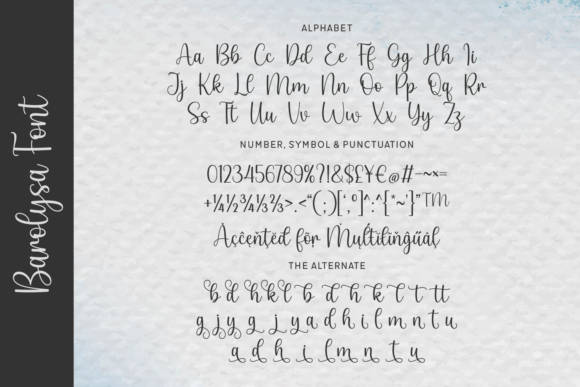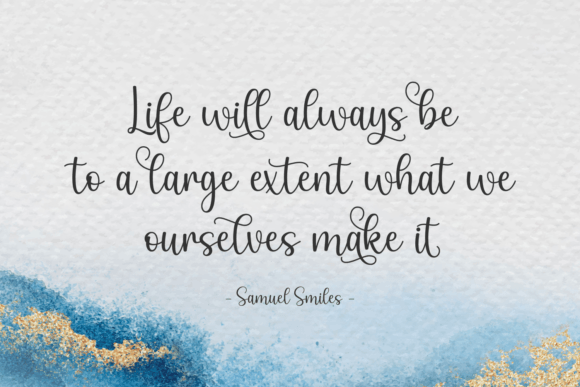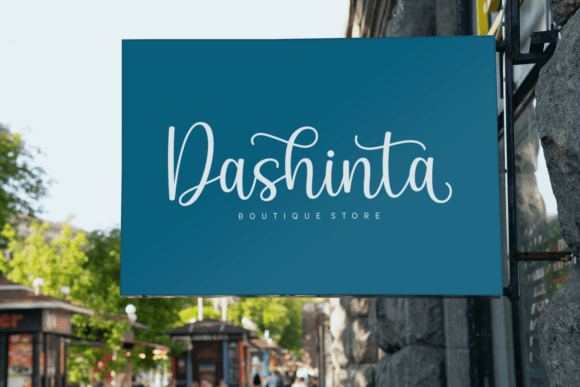
Discover the Timeless Elegance of Barolysa Font
Have you ever found yourself scrolling through your favorite design inspiration boards, searching for the perfect font to elevate your next project? We’ve all been there – pouring over font styles, testing out different combinations, and tweaking our designs until they’re just right. For many designers, the search is over with the introduction of the stunning Barolysa Font.
This beautiful script font is more than just a pretty face – it’s a versatile and sophisticated design tool that’s perfect for adding a touch of elegance to your wedding invitations, branding, and stationery. Whether you’re working on a digital or print design, Barolysa Font brings a modern and chic flair that’s sure to impress. Its unique swashes and flowing curves make it a valuable addition to any designer’s toolkit, and its timeless beauty ensures that it will never go out of style.
Barolysa Font Key Features
- Unique Characteristics: Barolysa Font features a unique blend of modern and vintage elements, with intricate details and ornate flourishes that set it apart from other fonts.
Designer Review: Barolysa Font
I recently had the chance to work with the Barolysa Font, and I must say it’s a mixed bag. There are some things that I really like about it, but also some areas where it falls short.
- Beautiful script-like connections between letters, giving it a unique and elegant feel.
- Well-suited for titles and headings, adding a touch of sophistication to any design.
- Good legibility, making it easy to read even at smaller font sizes.
- Limited character set, which may cause issues for users who need to work with non-English text.
- Not ideal for body text, as the font can become too ornate and distracting.
- Some characters may require manual tweaking to get them looking right, which can be time-consuming.
Overall, I think the Barolysa Font is a nice addition to any designer’s toolkit, but it’s not a one-size-fits-all solution. It’s perfect for specific projects where you want to add a touch of elegance, but it may not be the best choice for more straightforward design work.
Tips for Getting the Most Out of Barolysa Font
Experiment with different font weights and styles to create visual interest and hierarchy in your design. Use the font in combination with other design elements, such as images and graphics, to create a balanced composition. Consider using Barolysa Font for headings and titles, and a simpler font for body text to create contrast and readability.
Barolysa Font is suitable for a wide range of design applications, including corporate branding, marketing materials, and digital media. Use it for headings and titles to create a strong visual identity, and for body text to provide a clean and readable font for large amounts of text.